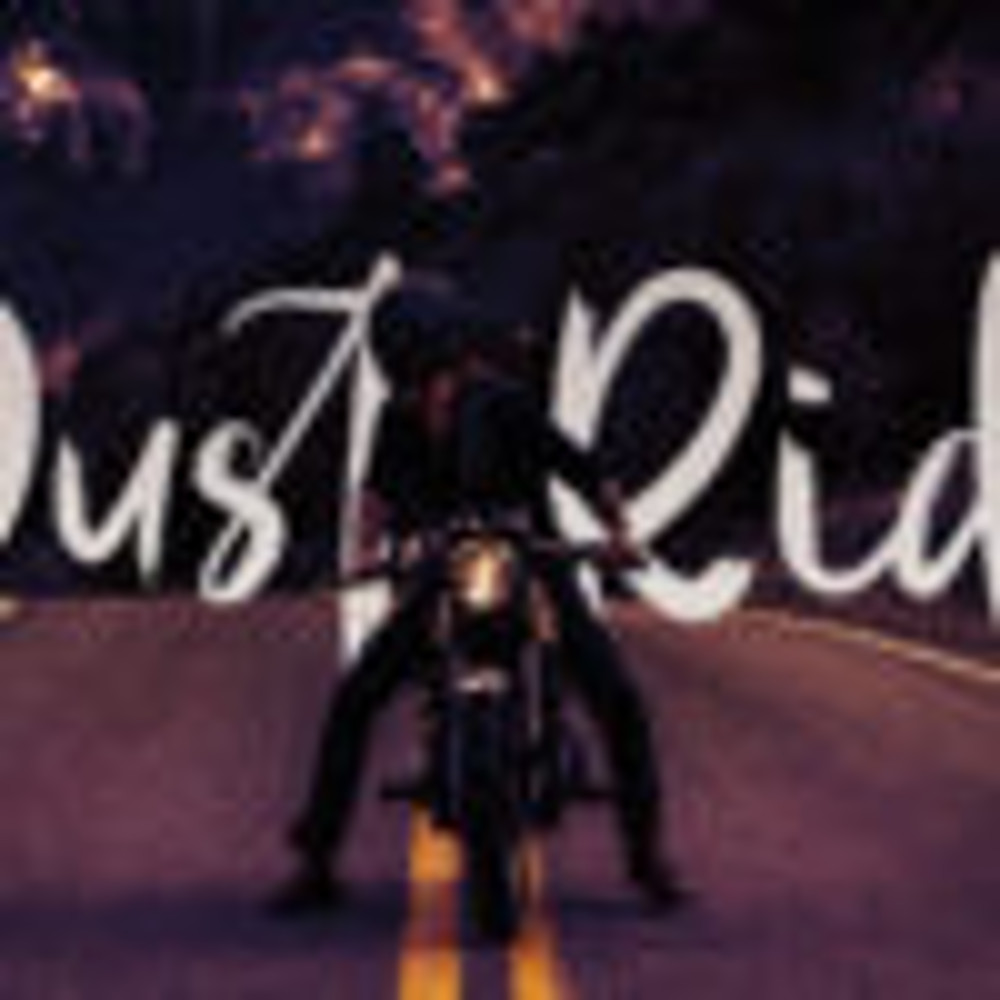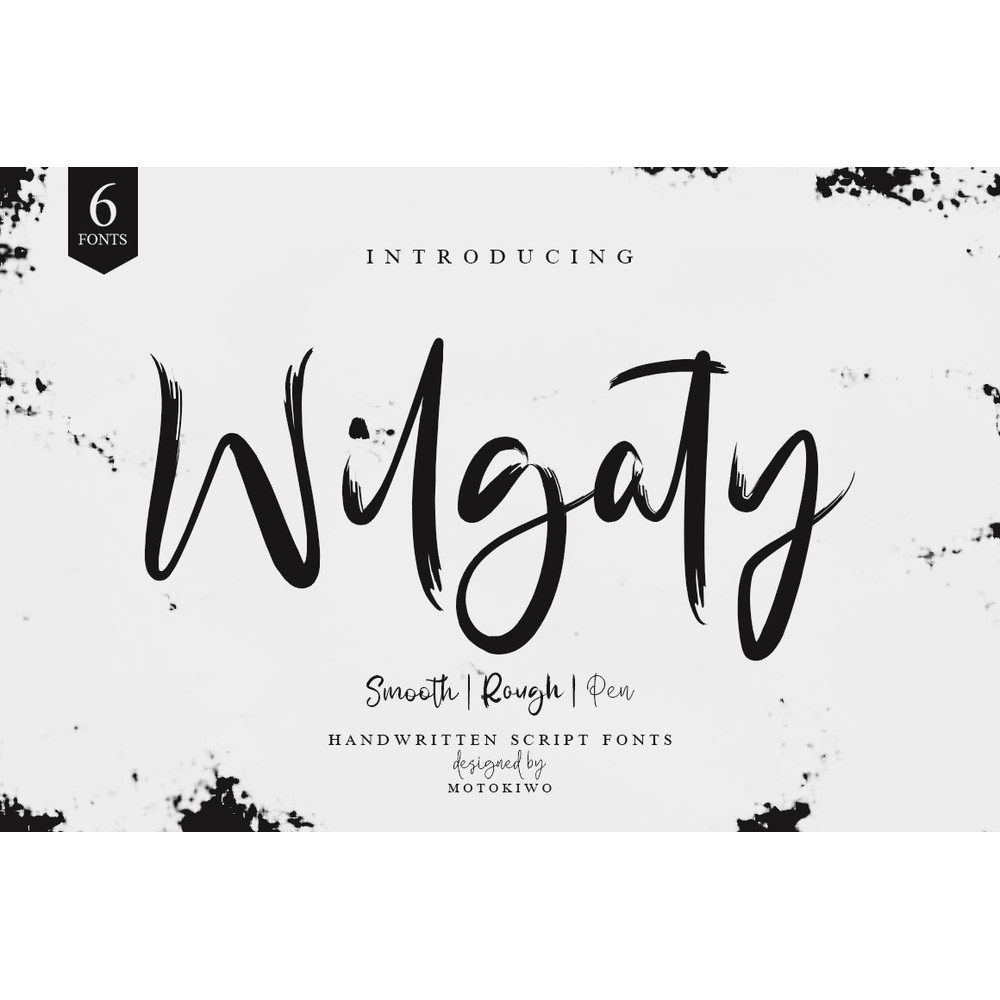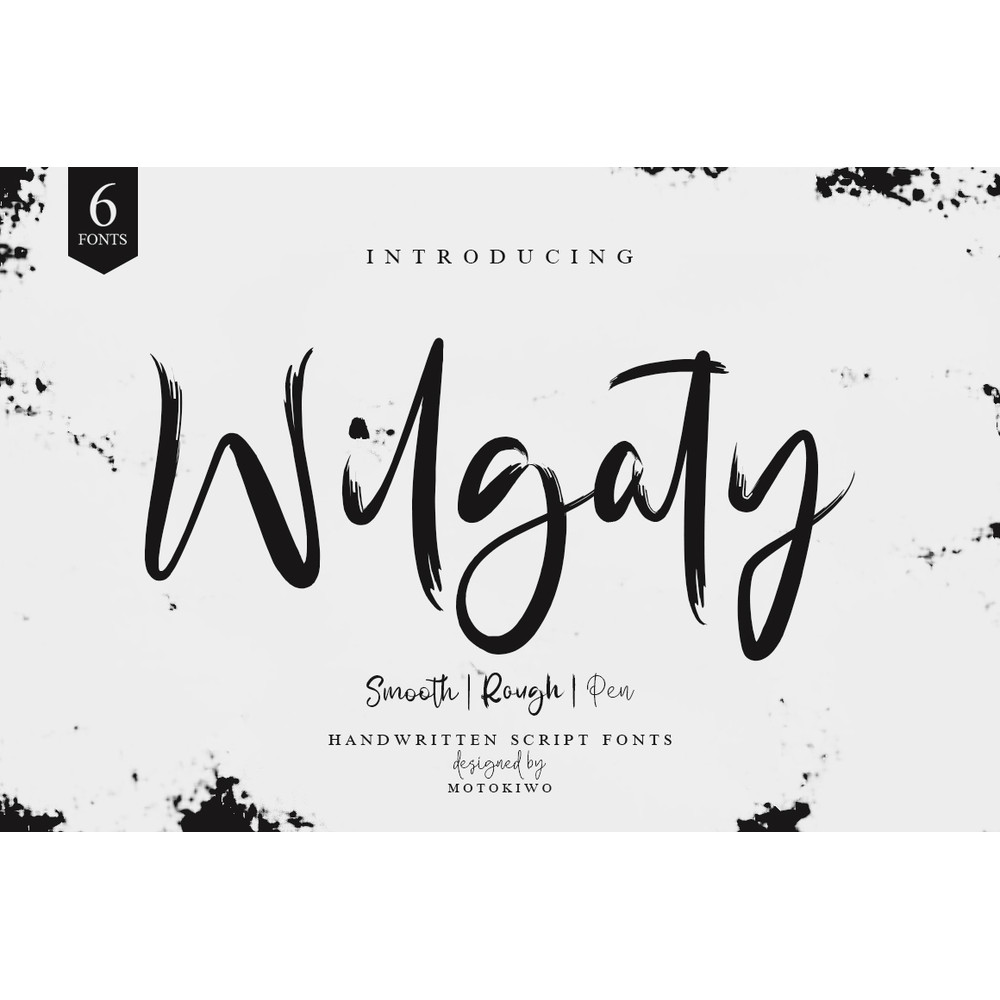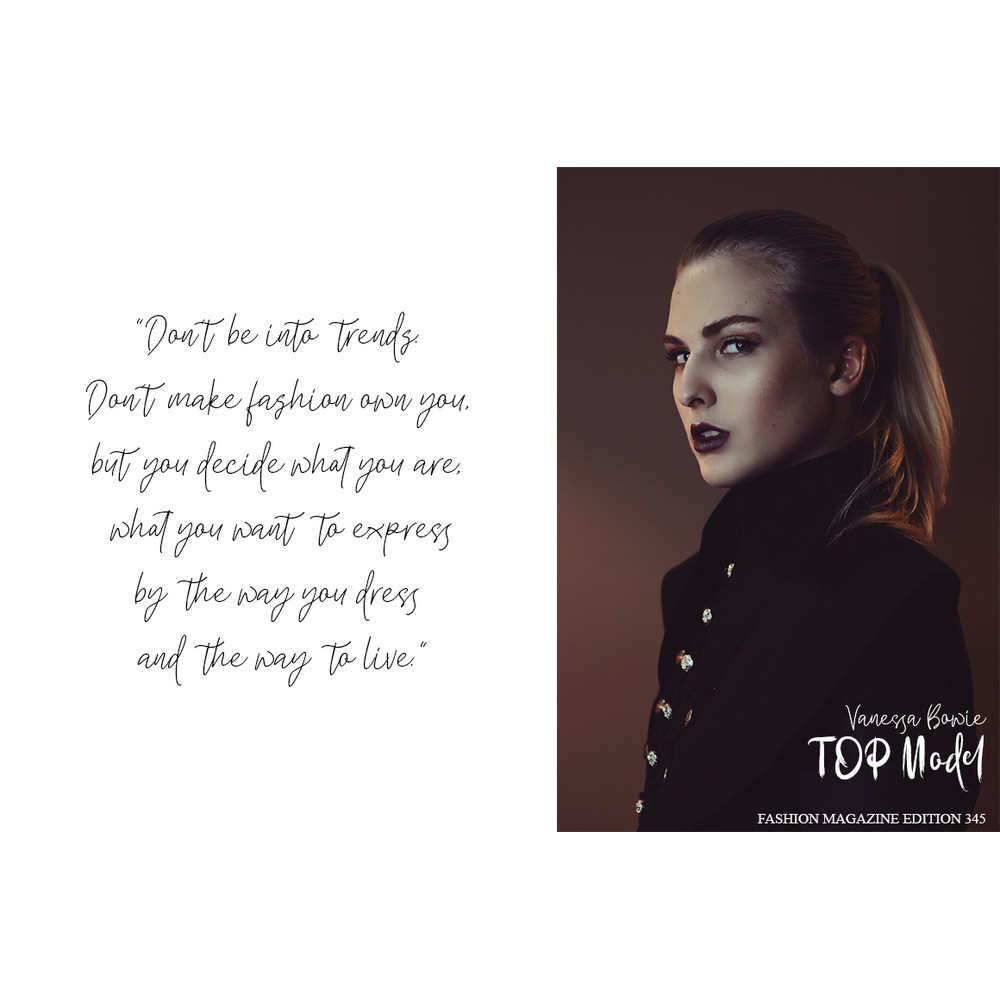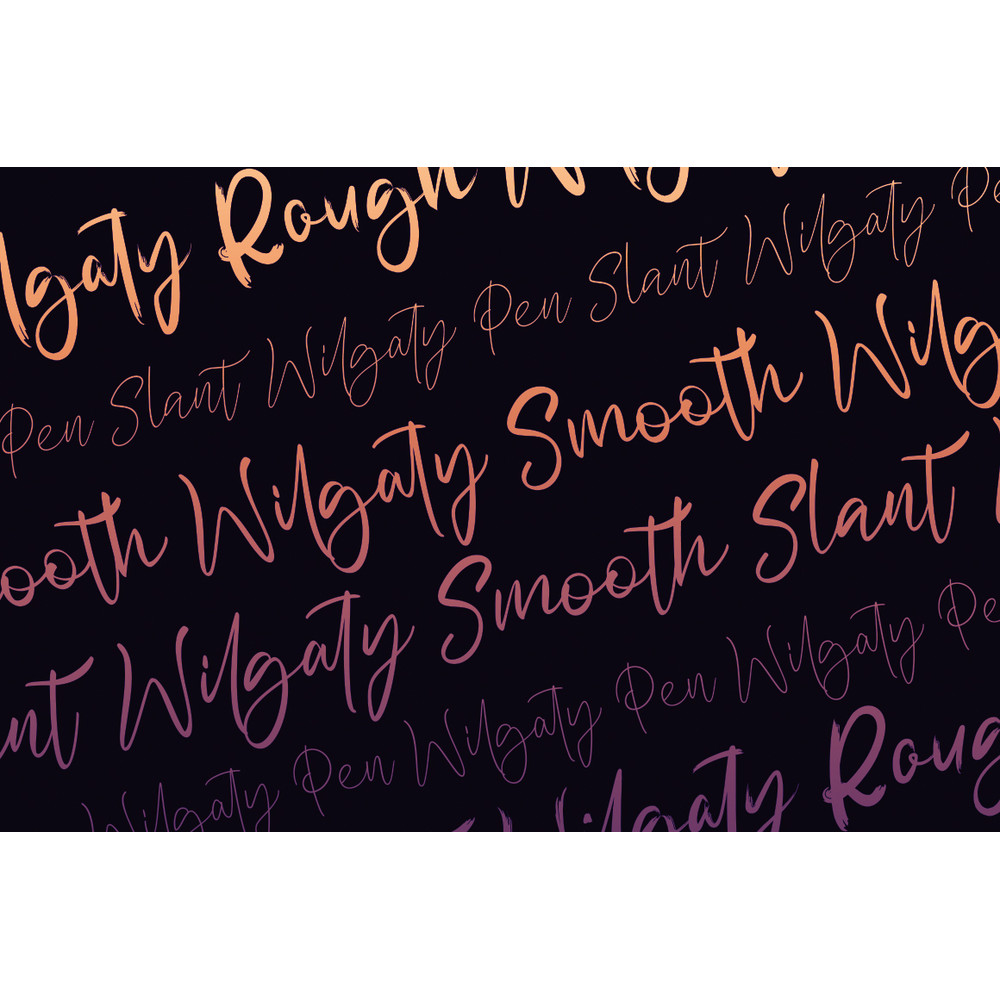
Wilgaty is handwritten script font with 3 stroke variants. It’s best choice to use the same writing style with different stroke style. Wilgaty suitable for large range of design project, just simply choose the stroke style that match with your project.